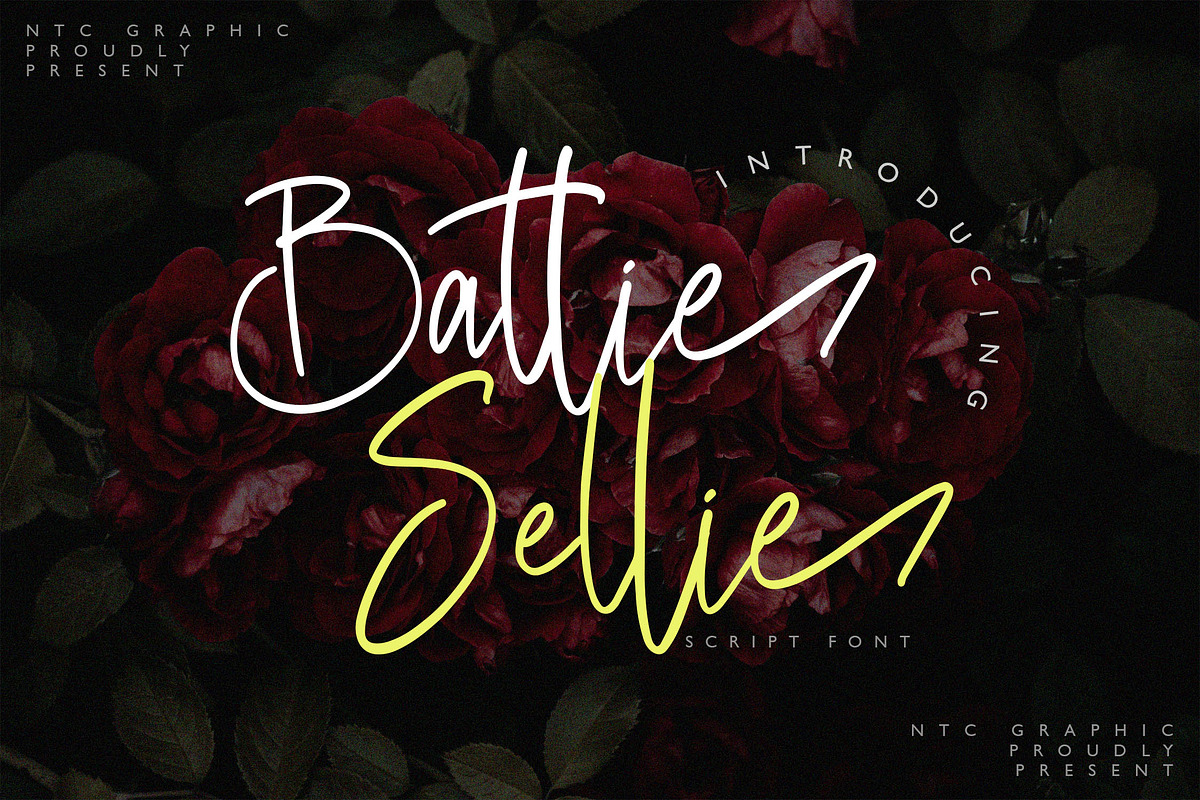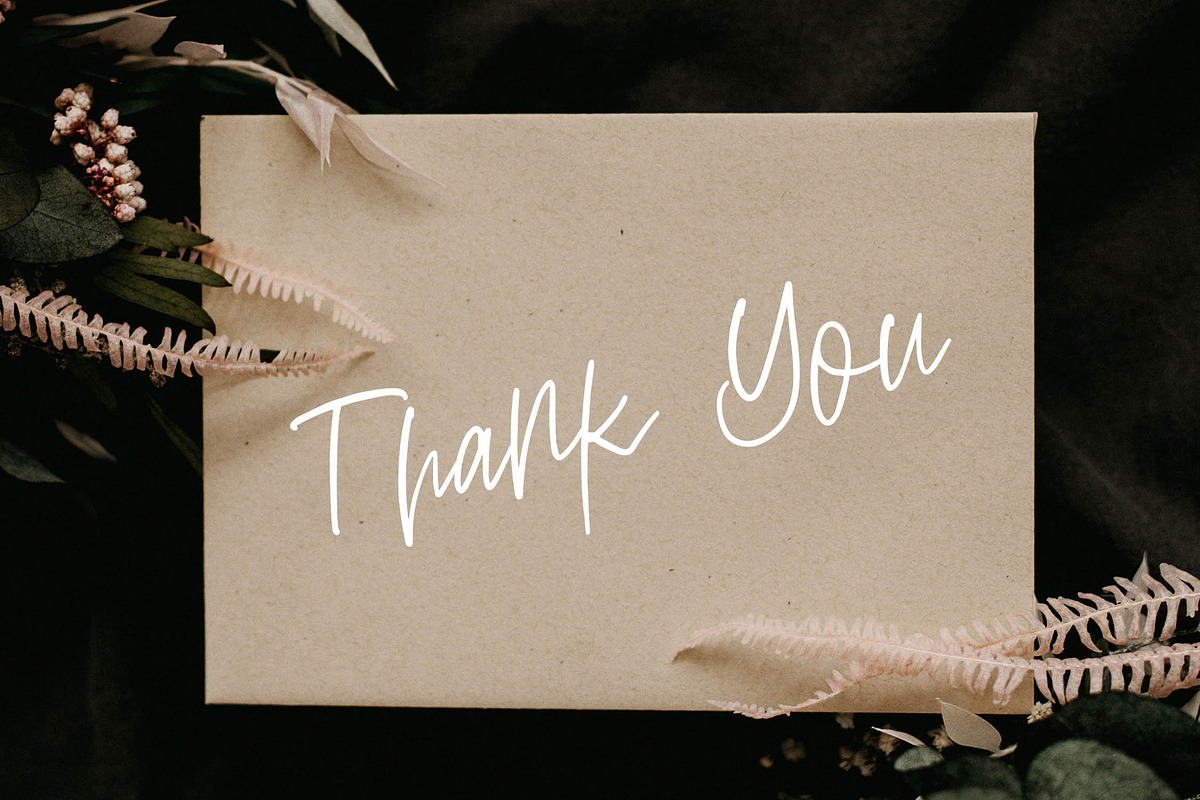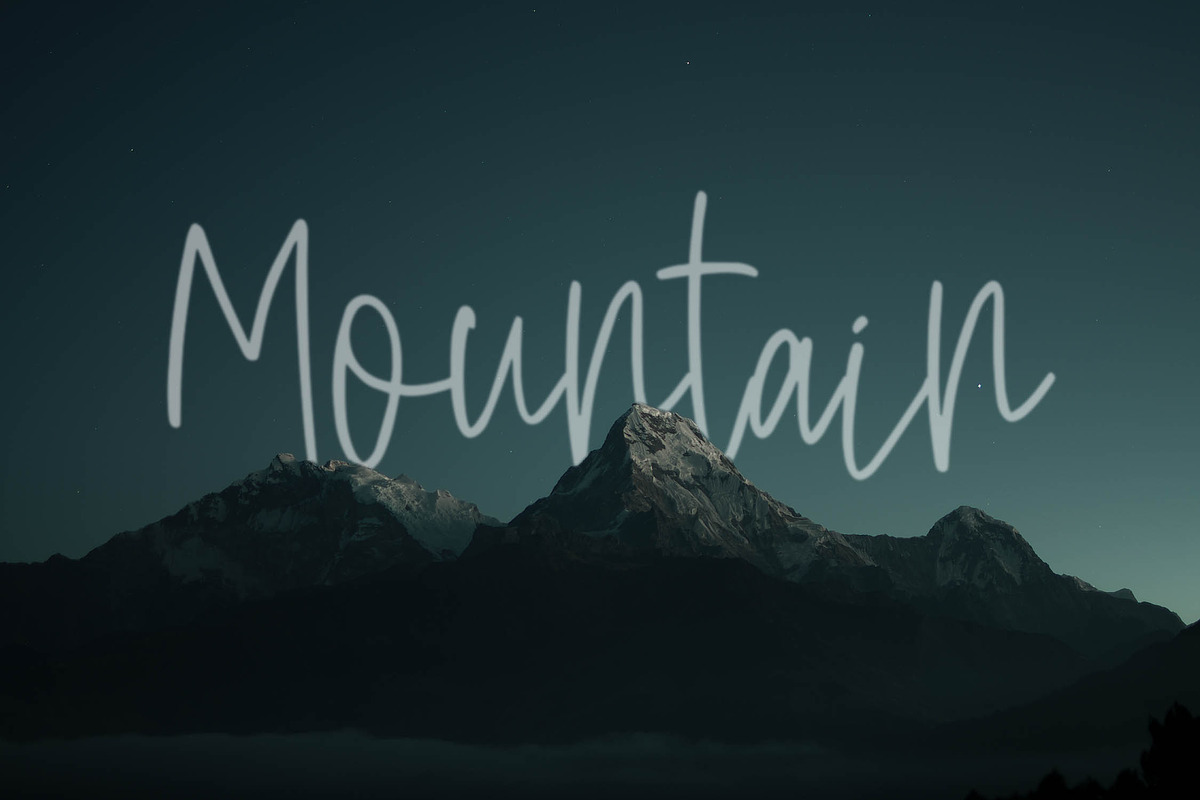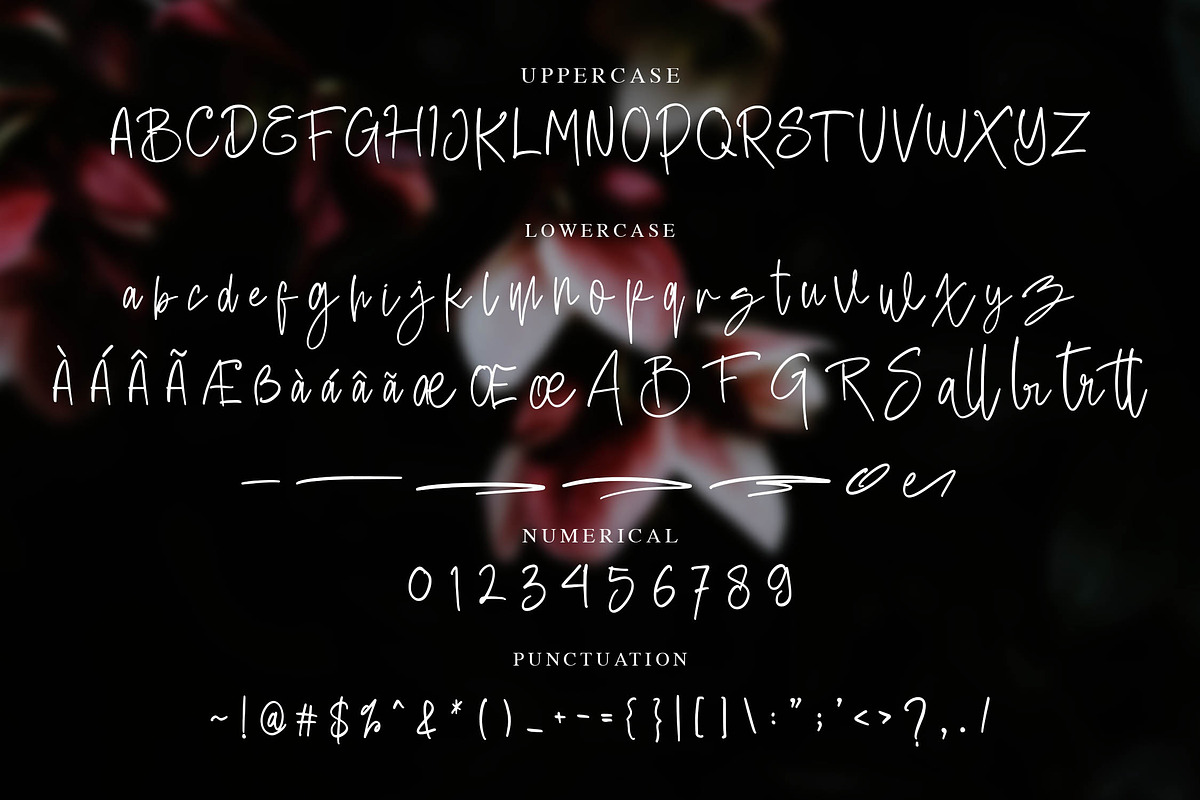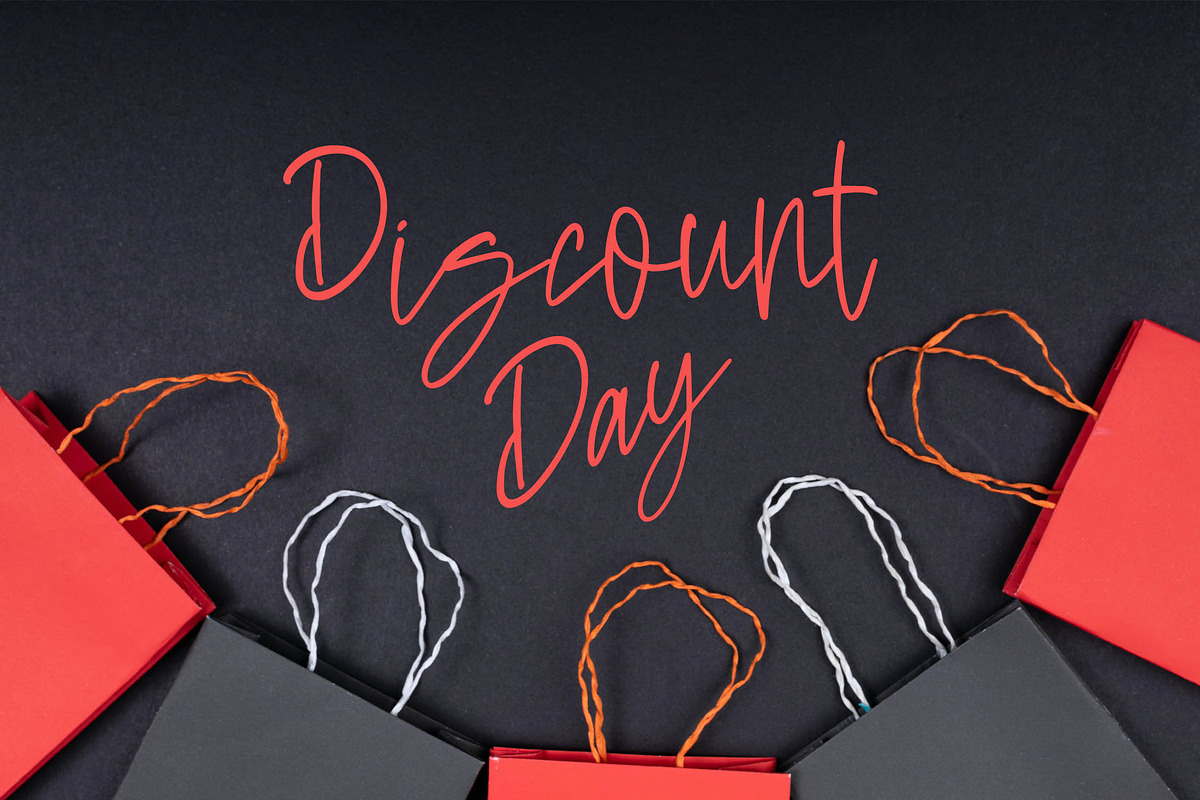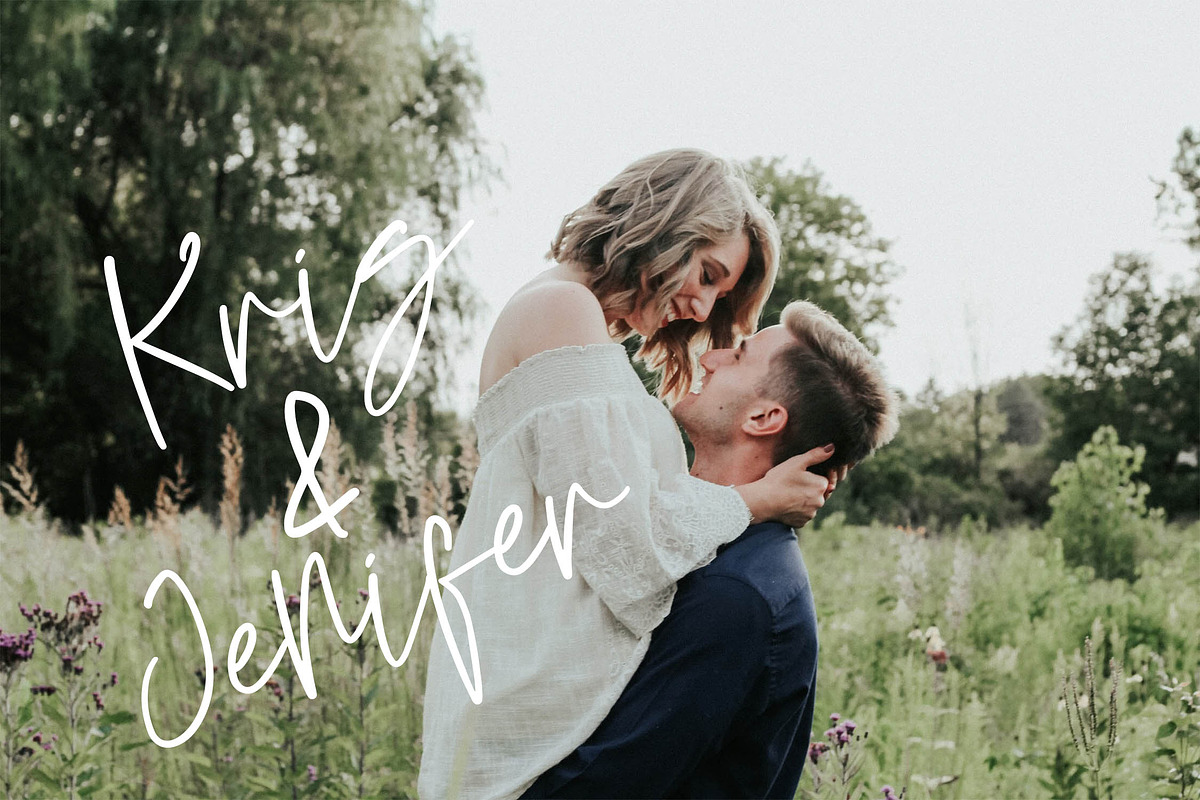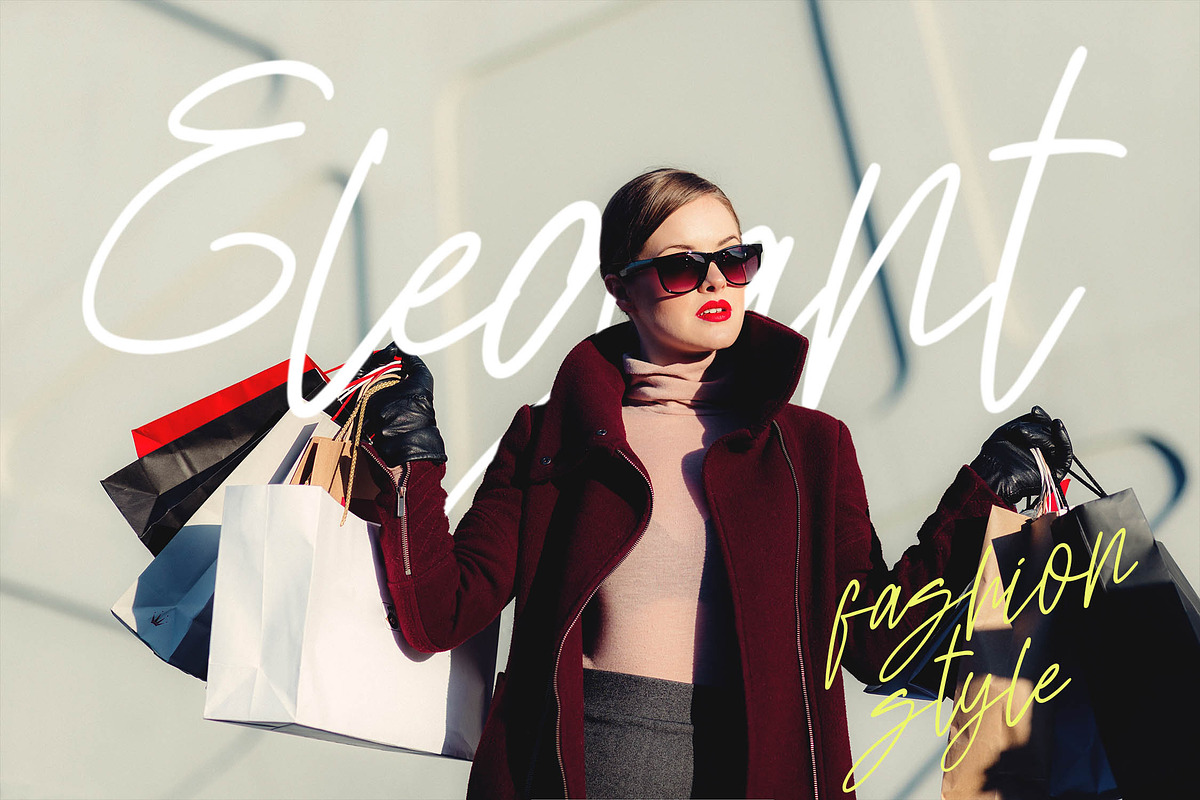
Battie Sellie - Script Font
Battie Sellie is a beautiful script font with a feminine handwritten style. Is a font style that is made with scratches and curvature shapes font characters are very beautiful. Can be applied to support the graphic appearance of the product to be more attractive and unique. This font is very nice for designing previews and covers, logo designs, shirt designs, and other graphic needs with feminine style.
- Stylistic Alternate